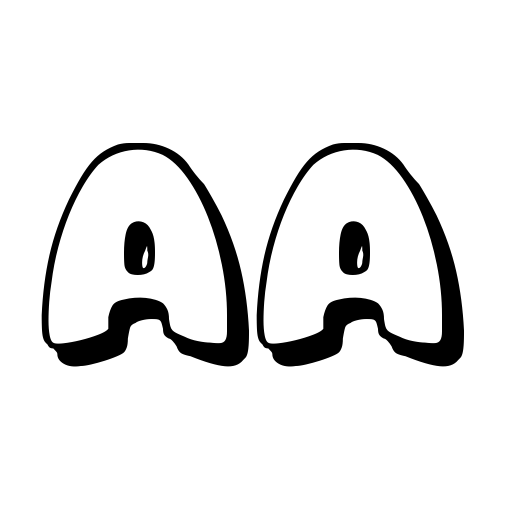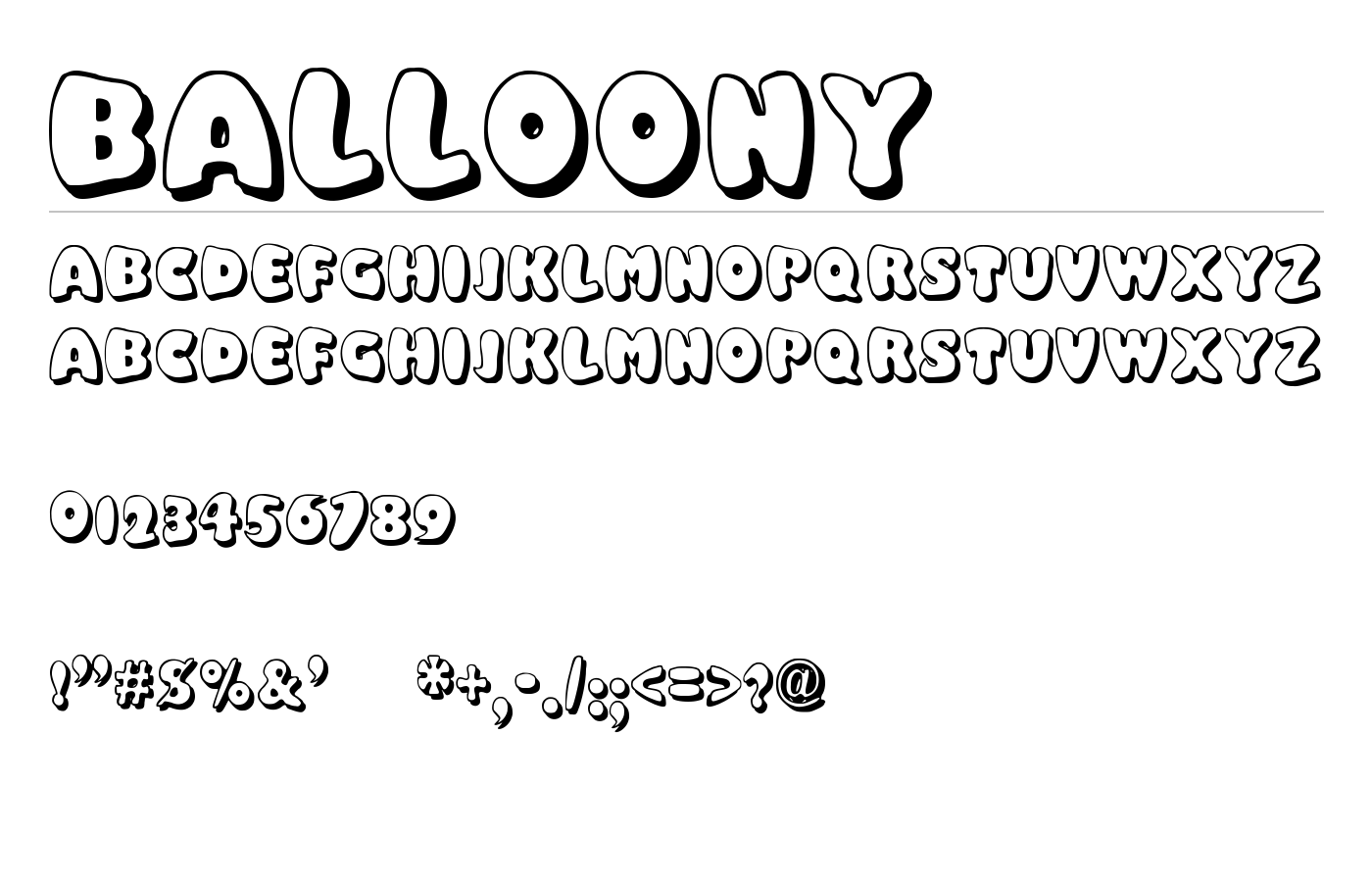
Balloony is a playful, bold display font with a rounded, inflated look that feels lighthearted and fun. Its thick, irregular strokes and soft, bubbly shapes make it perfect for children’s designs, party invitations, and any creative project wanting to evoke a sense of joy and whimsy. This font works best in large sizes for eye-catching headlines, logos, and posters where its unique charm can really stand out.
Balloony Font